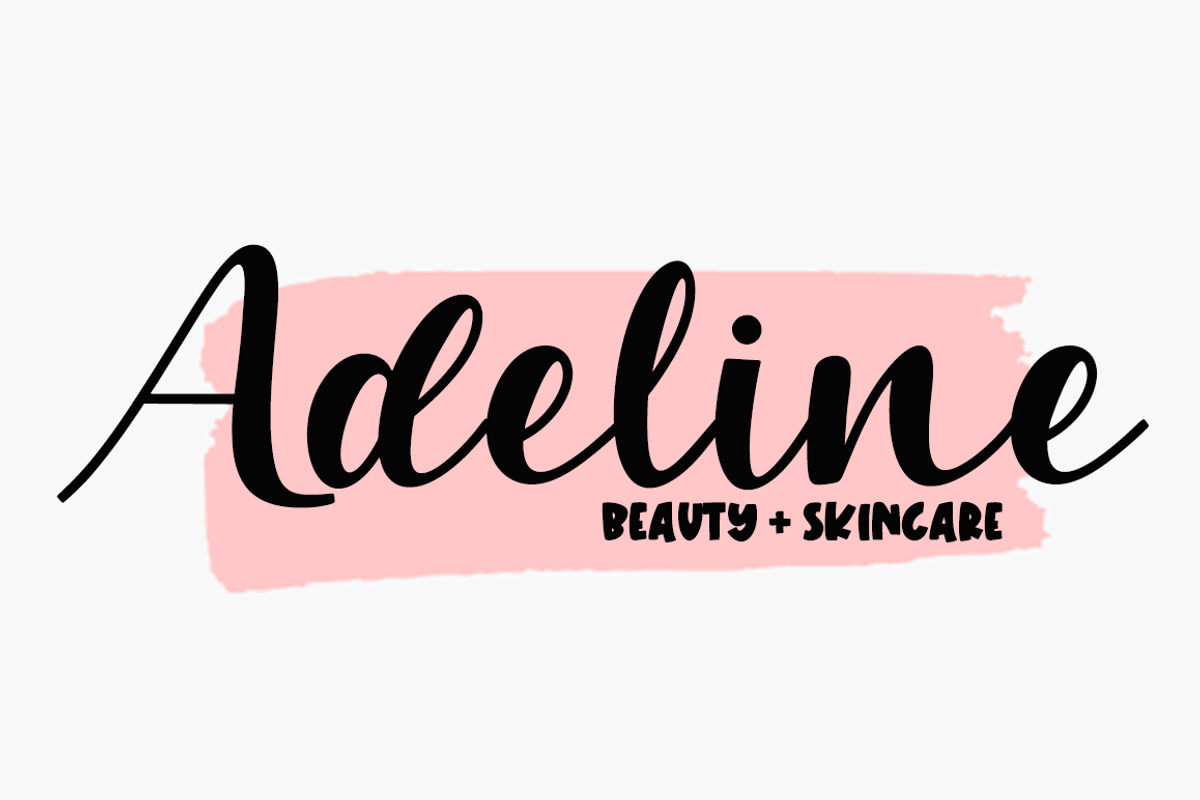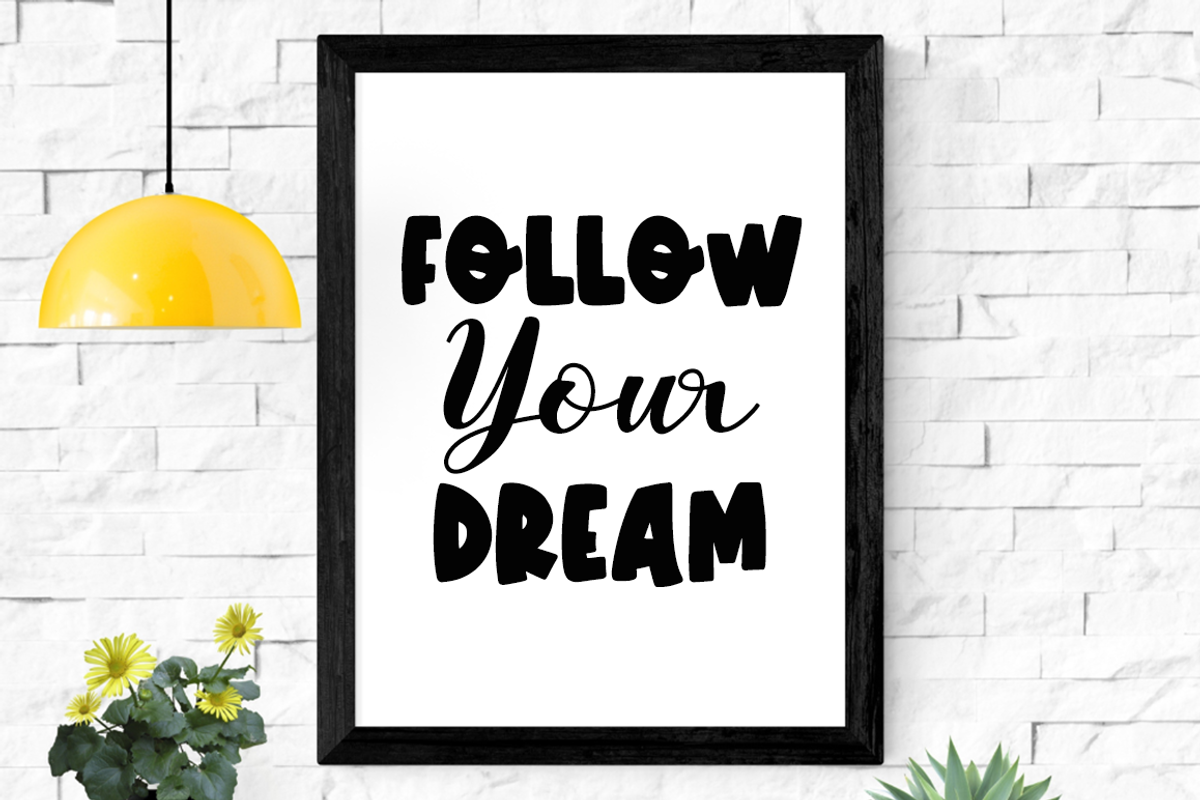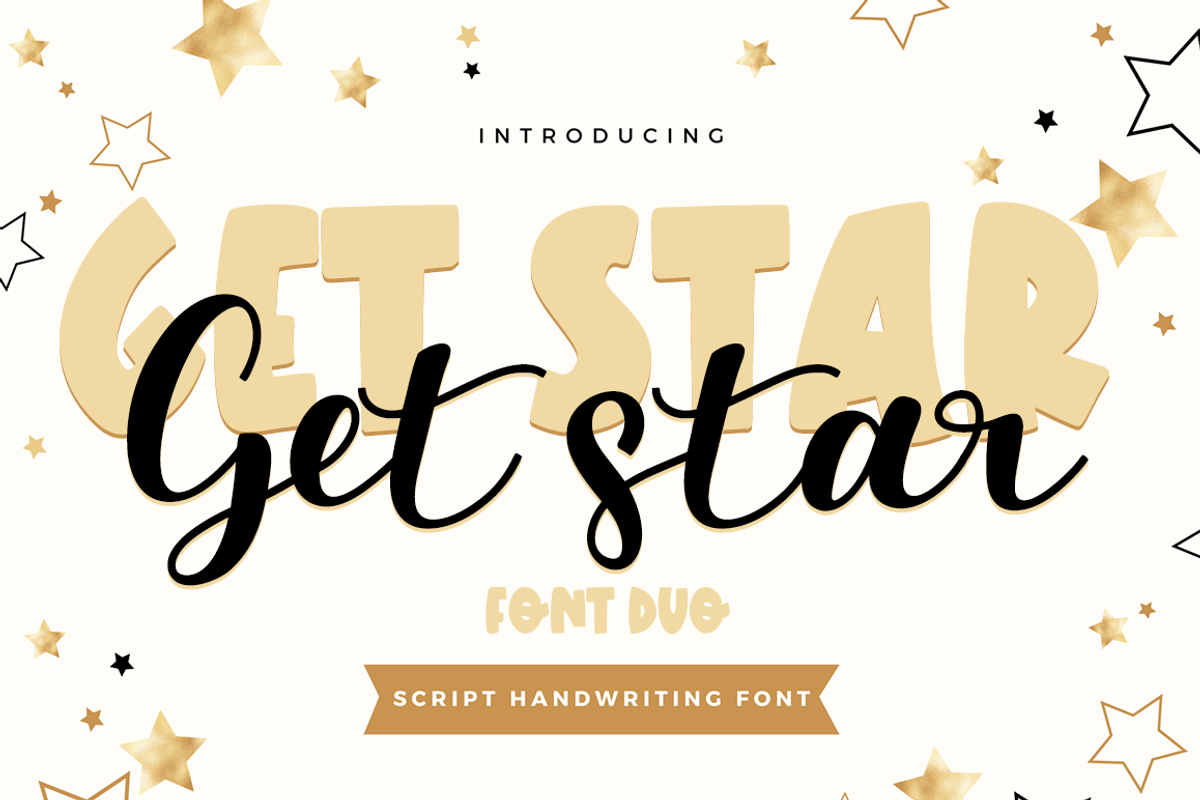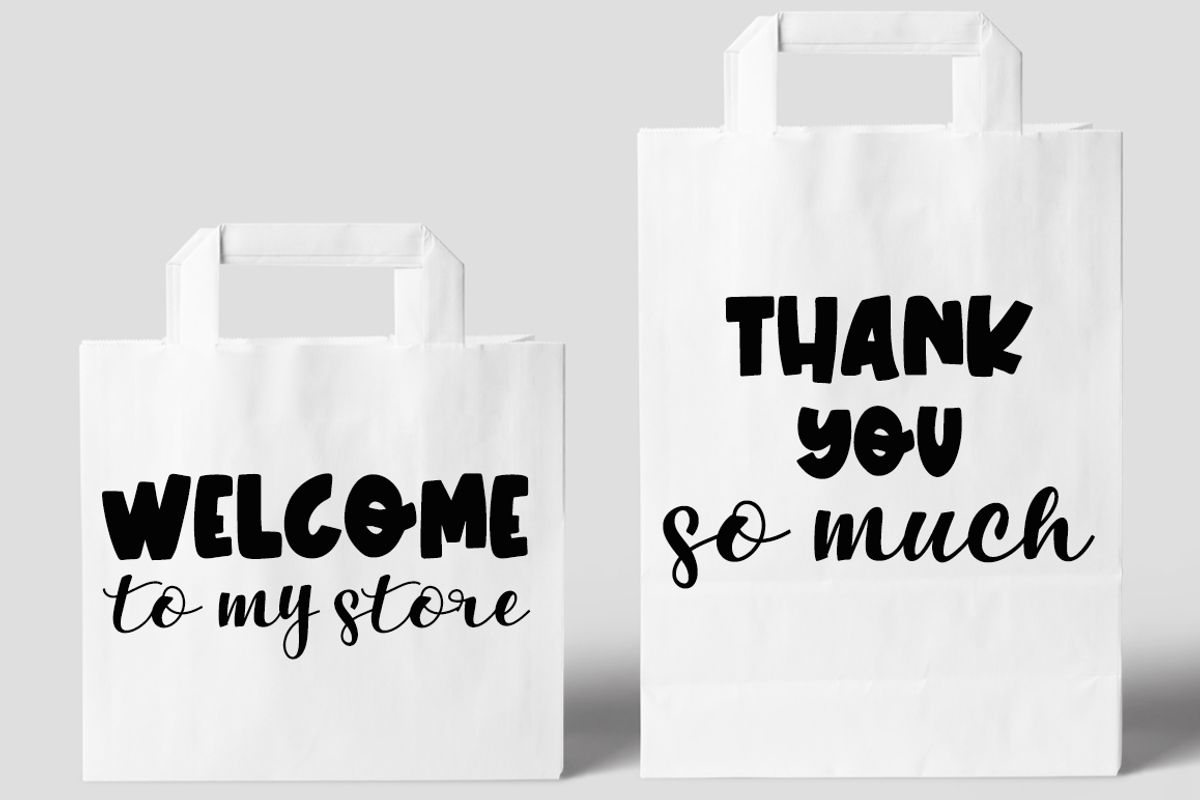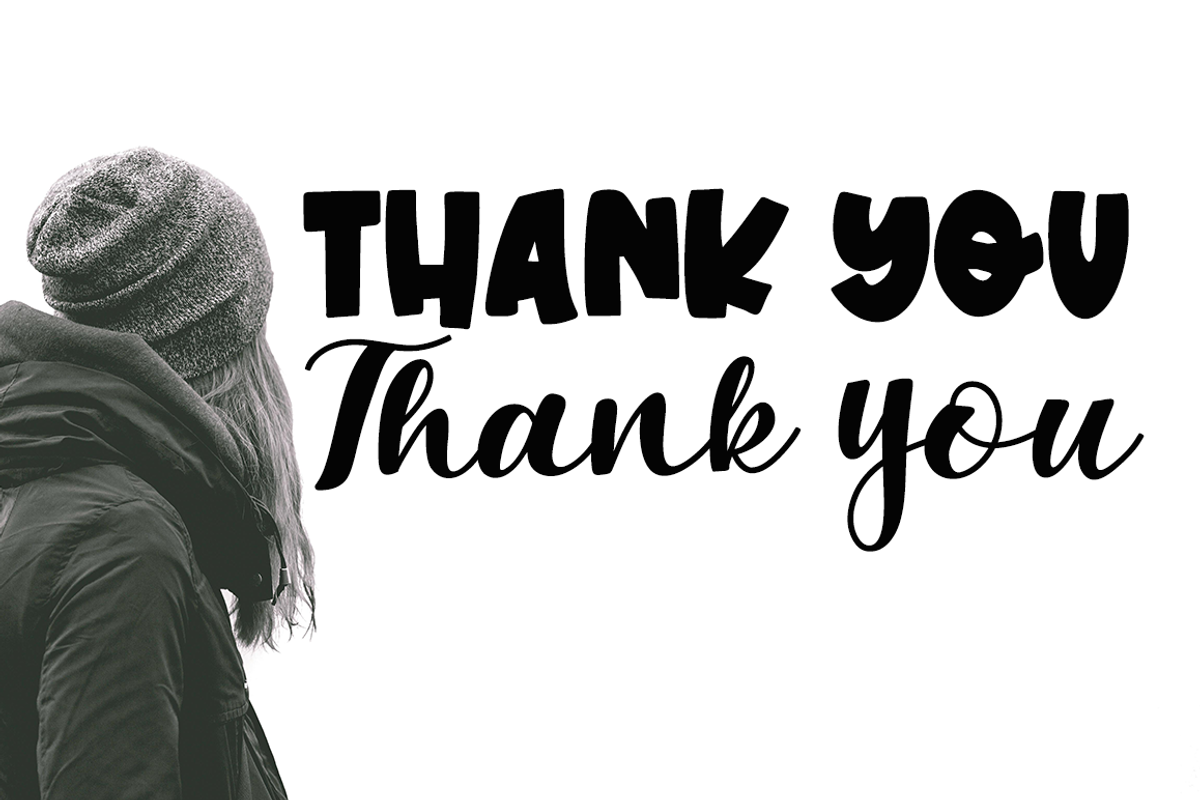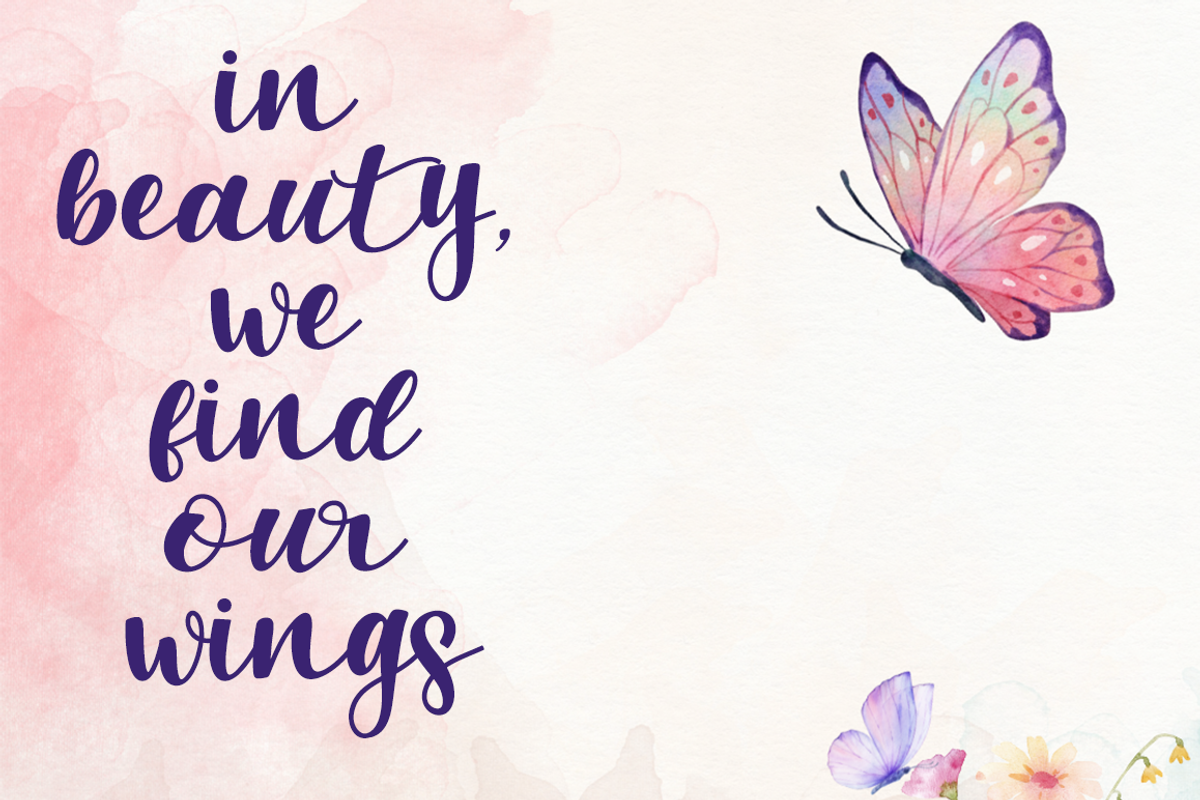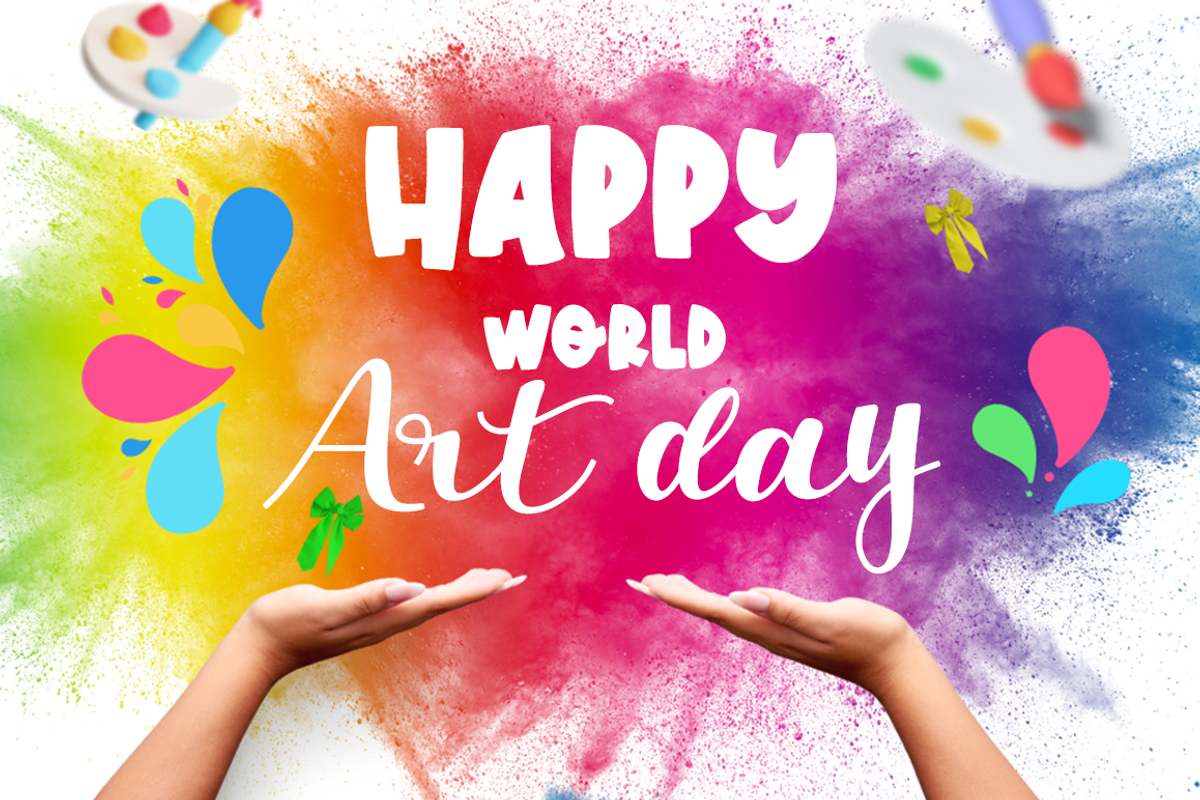
Get star
Introducing “Get star font duo”, a pair of captivating handwritten fonts carefully crafted for a variety of applications. These fonts serve as an ideal choice for endorsing various products, designing striking logos, packaging labels, expressing unique brand identities, and creating eye-catching headers or signs. Enhance the classic charm of your wedding invitations, diversify your signature, or liven up a beautiful book cover with these designs. Add a dash of sophistication to your posters, let your quotes speak volumes, and engage your audience even more. Dive into the versatile world of Get star font duo and let your creativity shine.